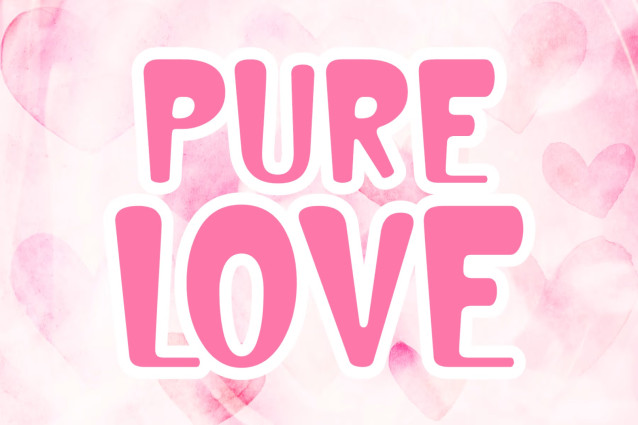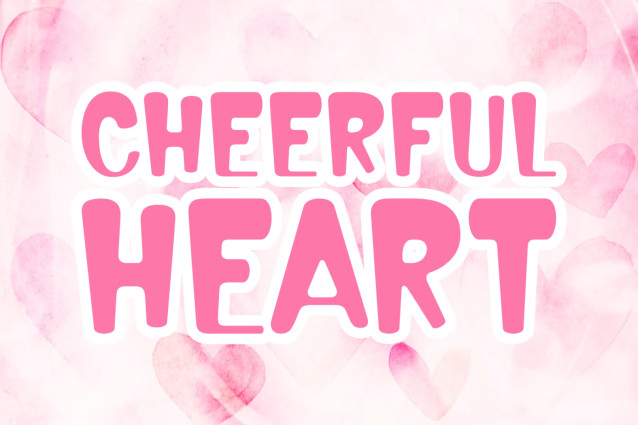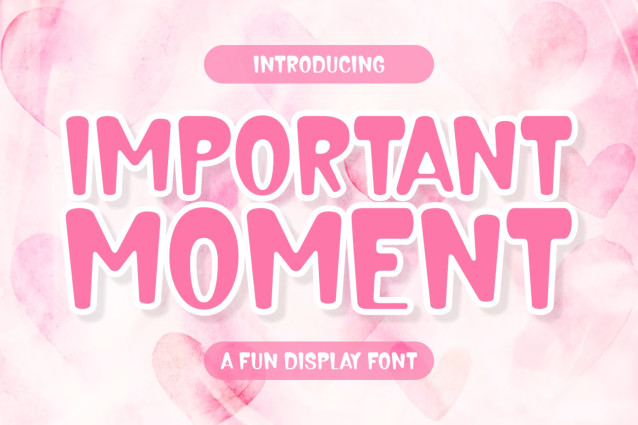
Important Moment Font
Introducing “Important Moment”, a versatile display font that radiates charm and quirkiness. Its cute appeal makes it an immediate hit amongst children, adding a dose of whimsy to any project. The heartfelt vibe embodied by this font makes it ideal for expressing love and affection in a unique, hand-drawn style. Its striking features lend themselves beautifully to headlines and crafts, making “Important Moment” a truly standout choice.
This visually appealing font is perfect for catching attention on social media and injecting elegance into sublimation projects. Its charm isn’t limited to the digital space, though; in apparel designs and authentic branding ventures, it will truly shine. “Important Moment” is perfectly suited for book covers and texts, card designs, clean and minimalist projects, and covers that need an appealing and captivating font.